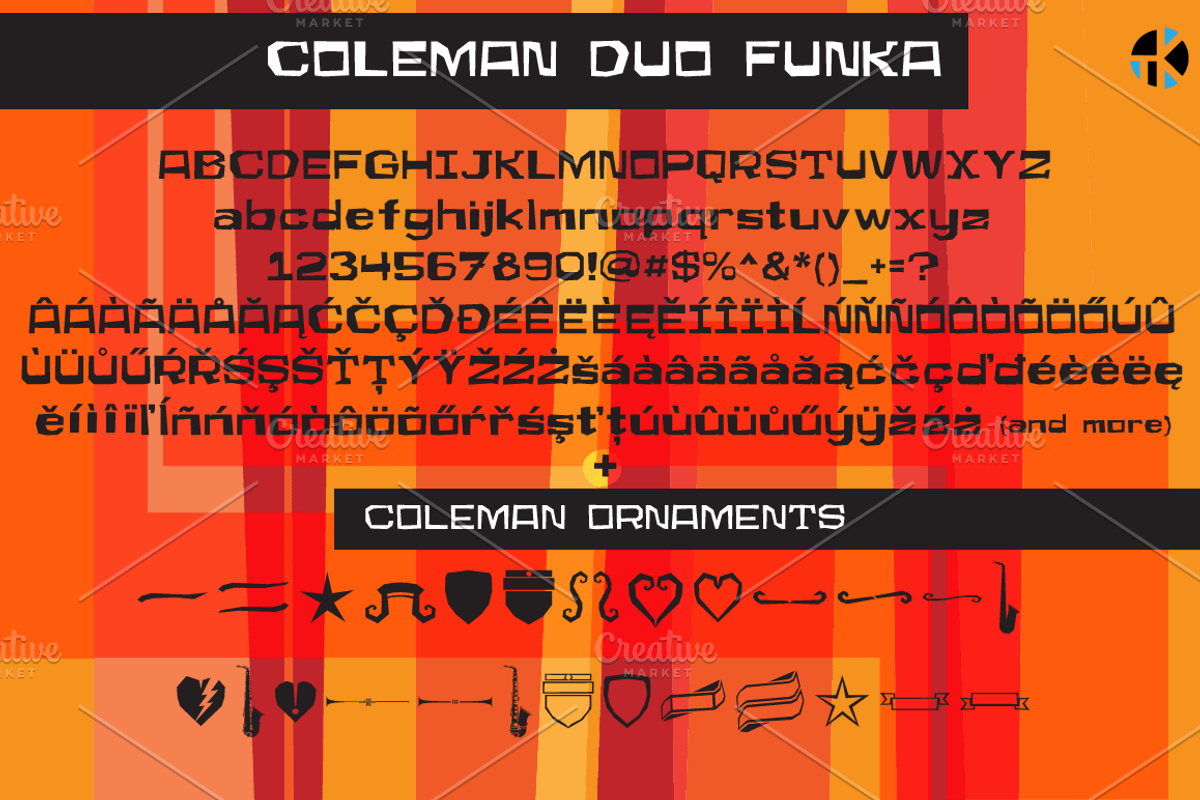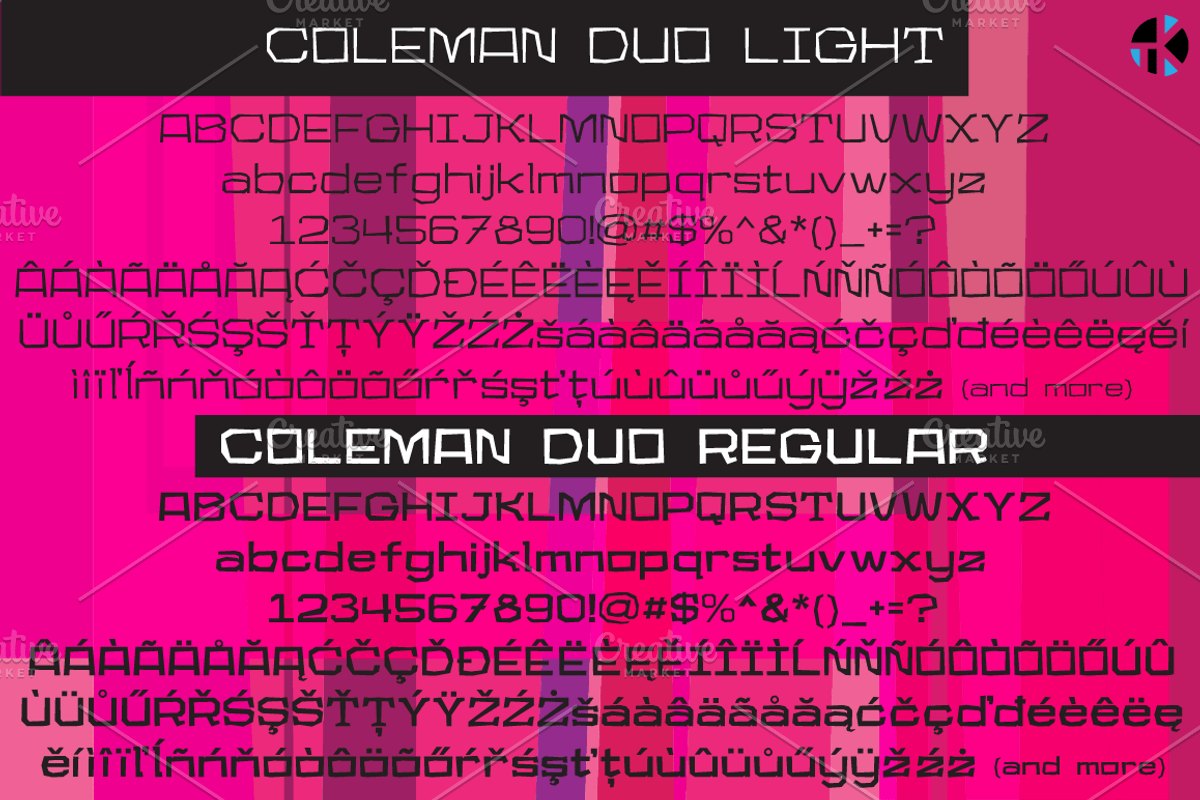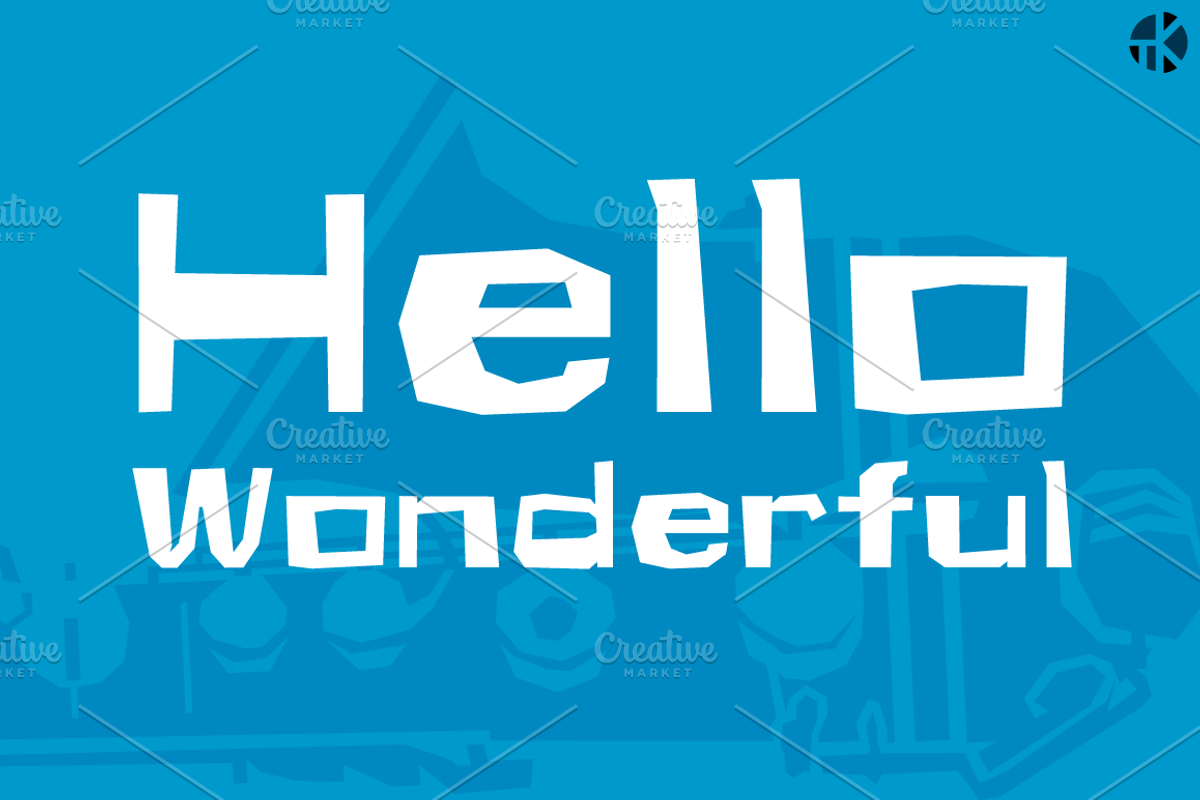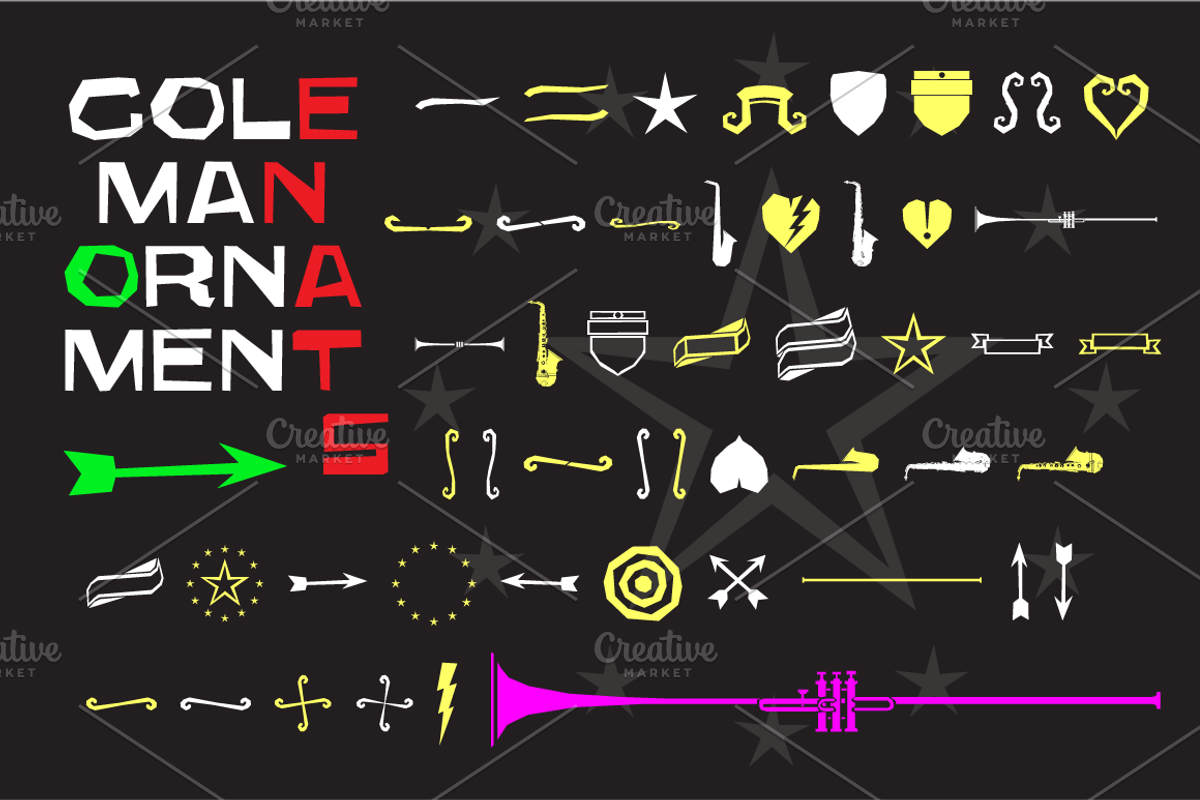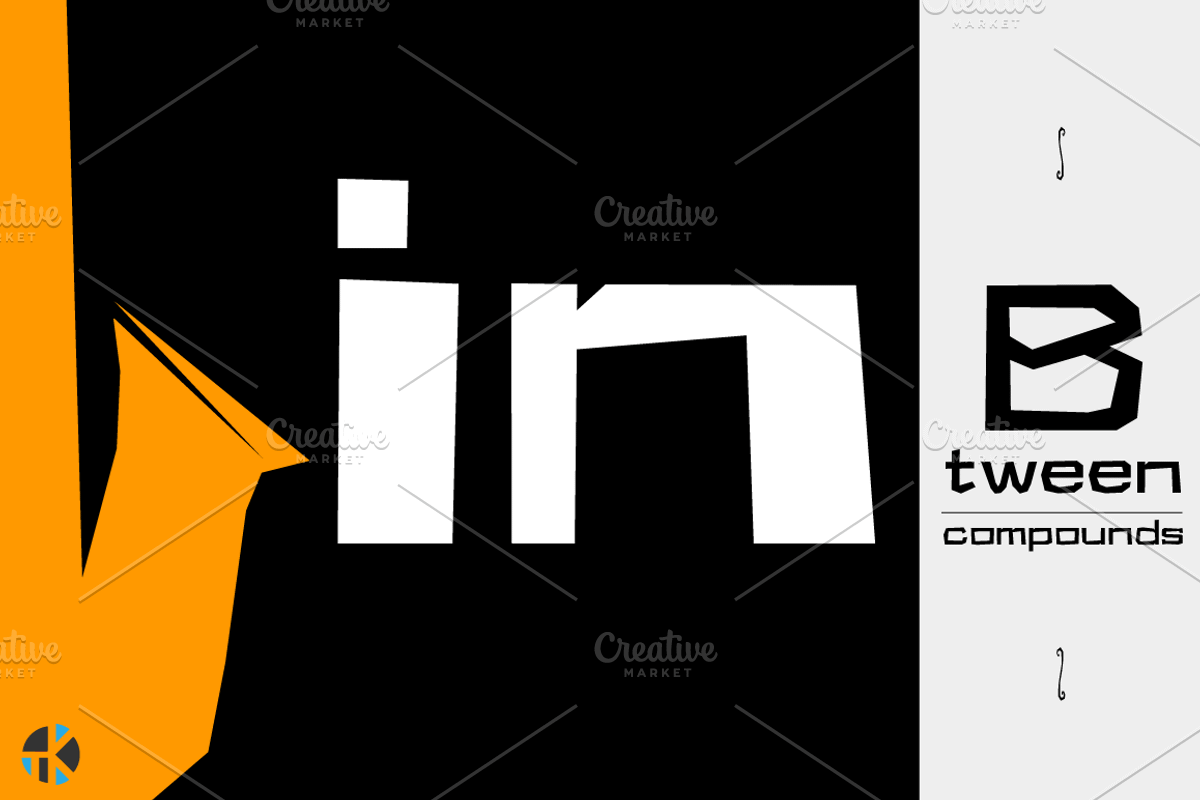
Coleman Duo Font Family
Coleman Duo Font Family by Typekirk is a font selected for branding, posters, packaging, typography.
- Bonus: Coleman Ornaments included!
- Coleman Duo includes:Coleman Duo Light, Coleman Duo Regular, and Coleman Duo Funka, plus Coleman Ornaments.
- Multilingual, accented, lively, and fun.
Coleman Duo Font Family by Typekirk fits naturally into Branding, posters, packaging, typography.